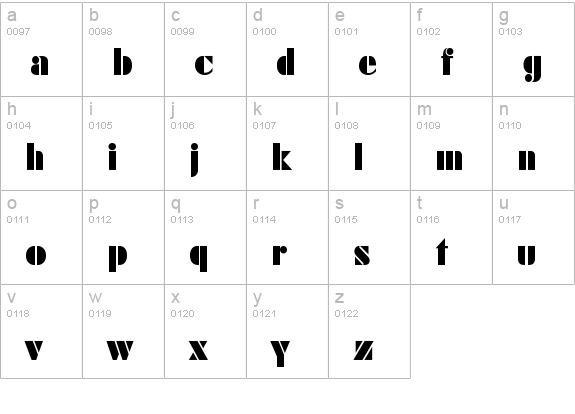
FuturaBlackEF Font Details
FuturaBlackEF font is a modern and stylish typeface that exudes sophistication and elegance. With its bold and geometric design, this font is perfect for creating eye-catching headlines, logos, and branding materials. The clean lines and distinct letterforms of FuturaBlackEF make it a versatile choice for a wide range of design projects. The best part about FuturaBlackEF font is that it is available for free download at FontsMarket.com. This means that you can easily access and use this stunning font in your designs without having to worry about any additional costs. Whether you are a graphic designer, a business owner, or a creative enthusiast, FuturaBlackEF font is a valuable addition to your font collection. Add a touch of sophistication and modernity to your designs with FuturaBlackEF font, and make a lasting impression on your audience. Download this font for free today and elevate your design projects to the next level.